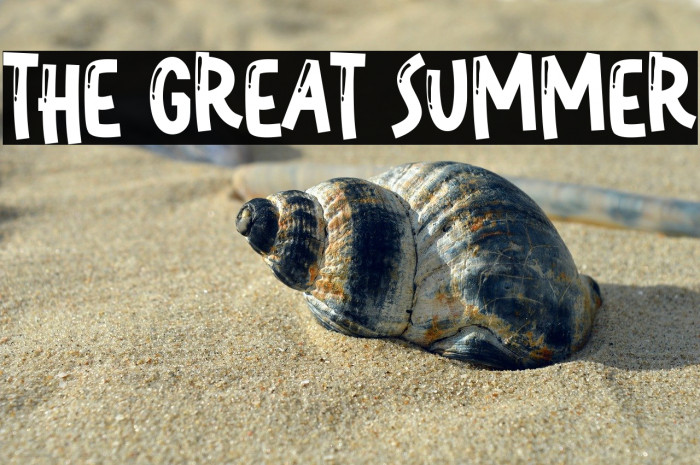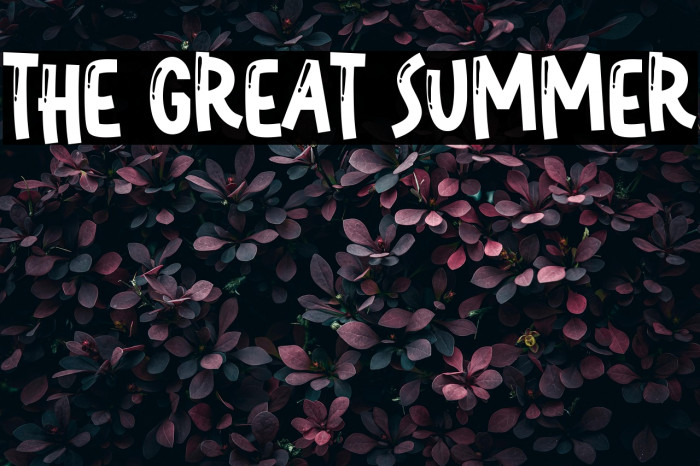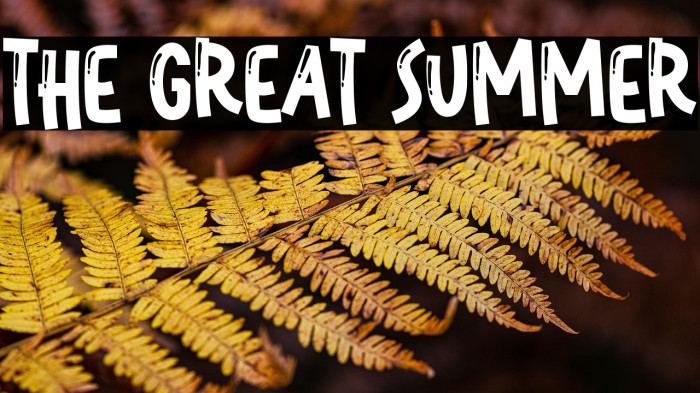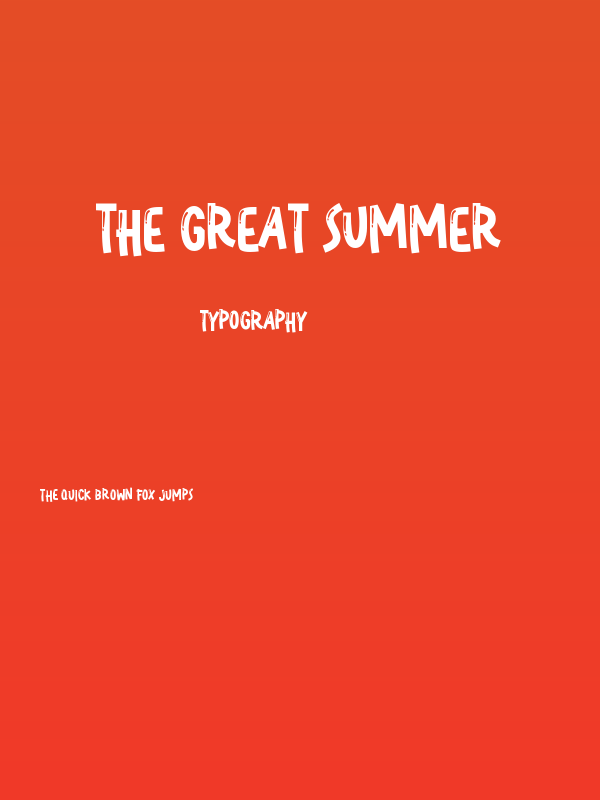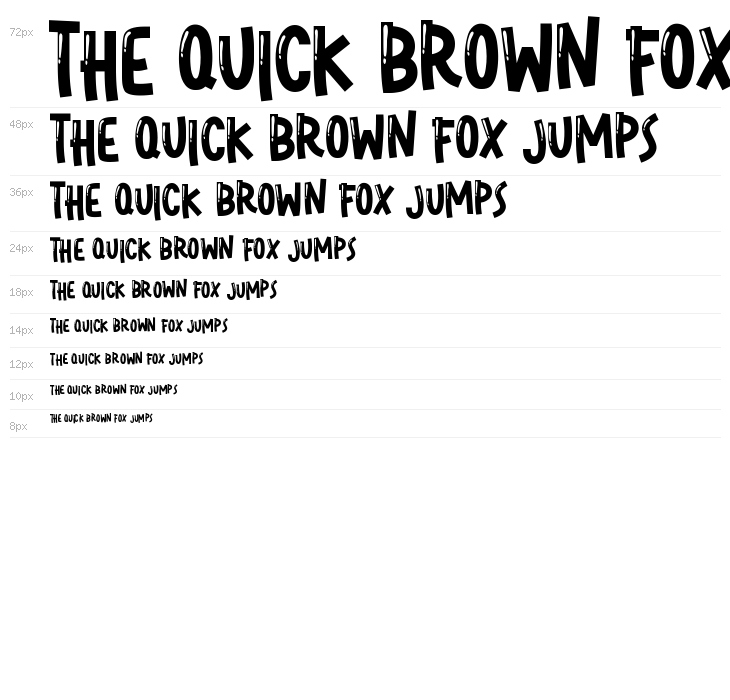
The Great Summer Font
The Great Summer Description
This font features a playful and bold style with a hand-drawn appearance. The characters are slightly irregular, giving it a whimsical and casual feel. The strokes are thick and consistent, with a slight tilt that adds to its informal charm. The uppercase and lowercase letters maintain a cohesive look, while the numbers and special characters are designed to match the overall playful aesthetic. This font is perfect for projects that require a fun and lively touch, such as children's books, party invitations, or playful branding.
| Proposed Projects | Ideal for children's books, party invitations, playful branding, and casual posters. |